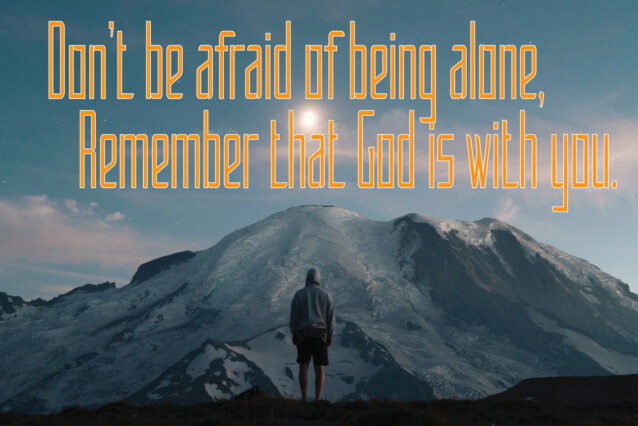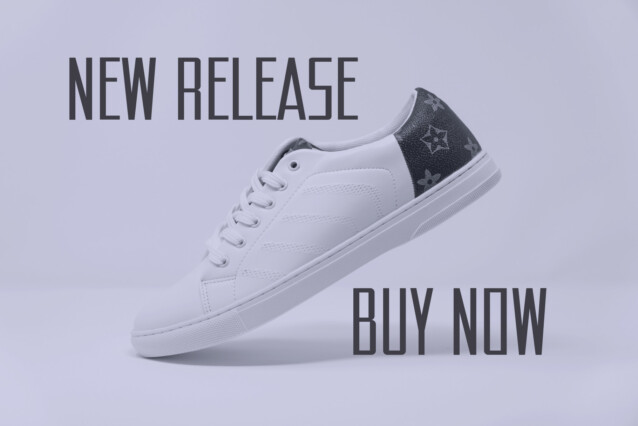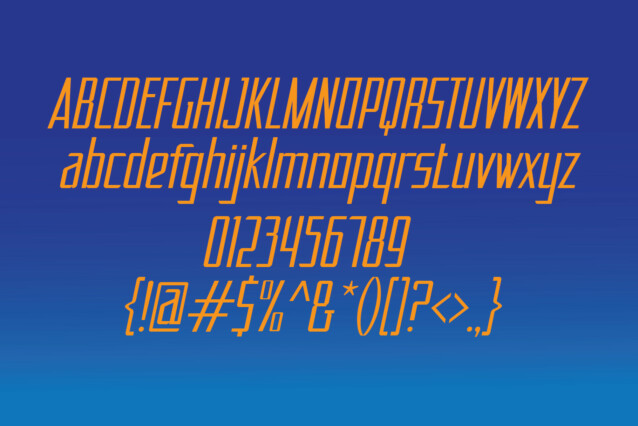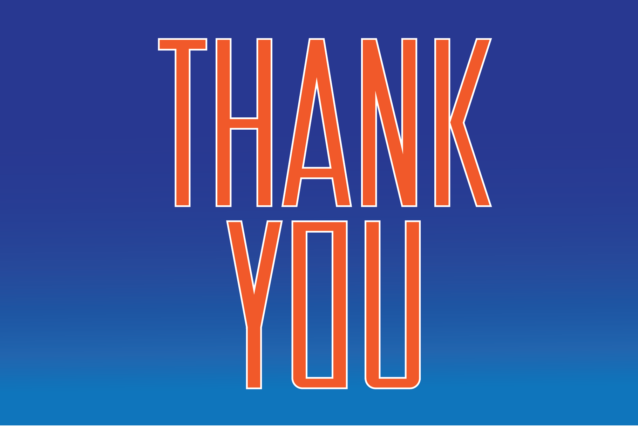
Albertville Sport Font
Albertville Sport font is a versatile and dynamic typeface designed specifically for the world of sports. With its striking appearance and comprehensive character set, this font is the ultimate choice for any sports-related project. Whether you’re creating posters, banners, team logos, or promotional materials, Albertville Sport Font is here to elevate your design game.